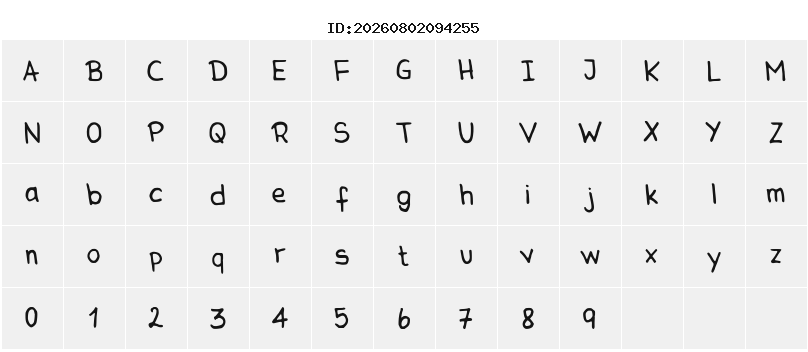
• Font Name: MCG
• Font ID: FontForge 2.0 : GabyCMata : 7-2-2014
• Full Font Name: MCG Medium
• PostScript Name: MCG-Medium
• Character Count: 176
About MCG.ttf
MCG.ttf is a modern, elegant sans-serif font designed for ultimate readability and visual harmony. Perfect for branding, headlines, web design, and print materials.